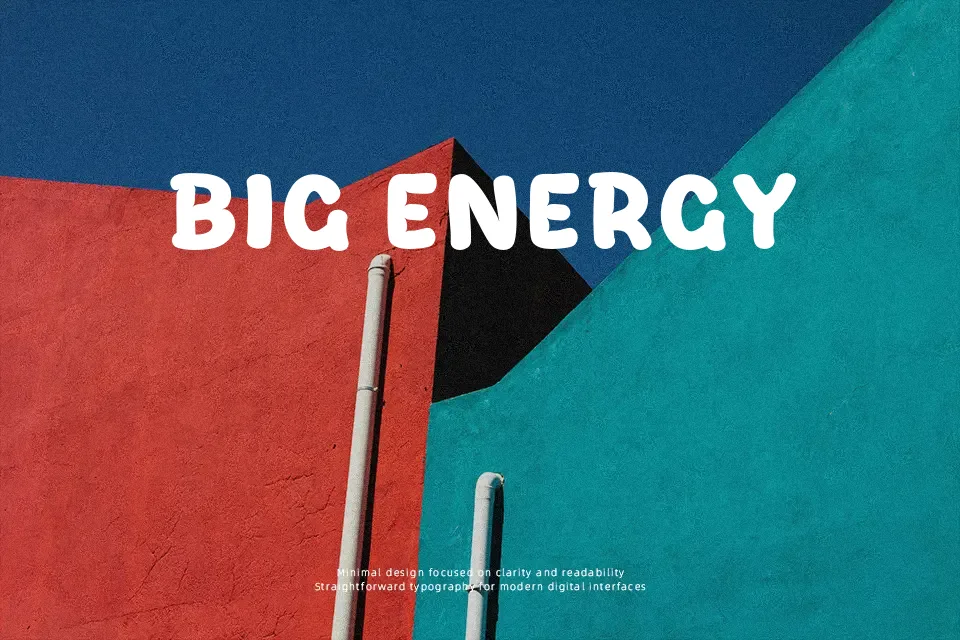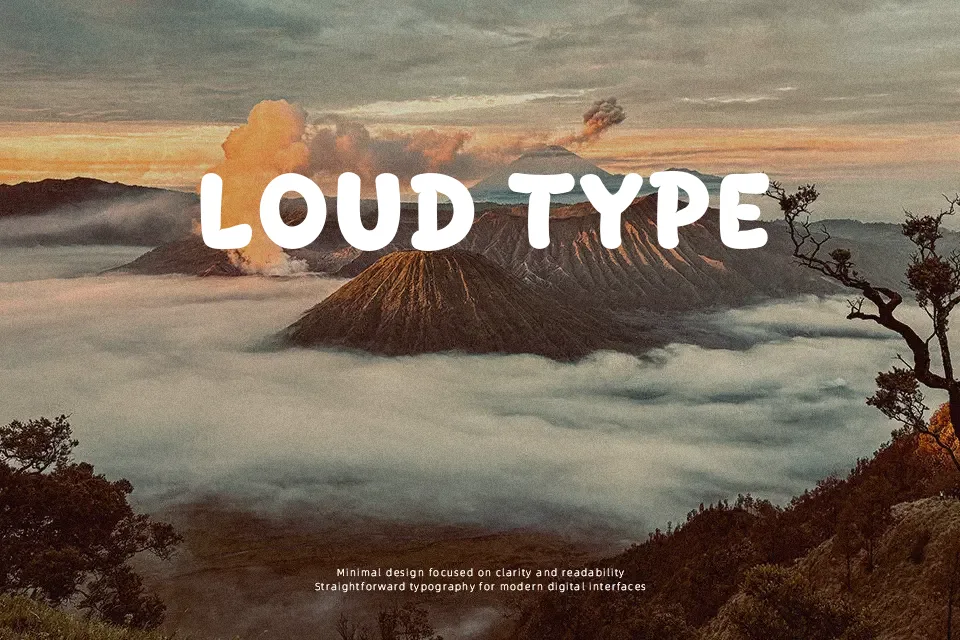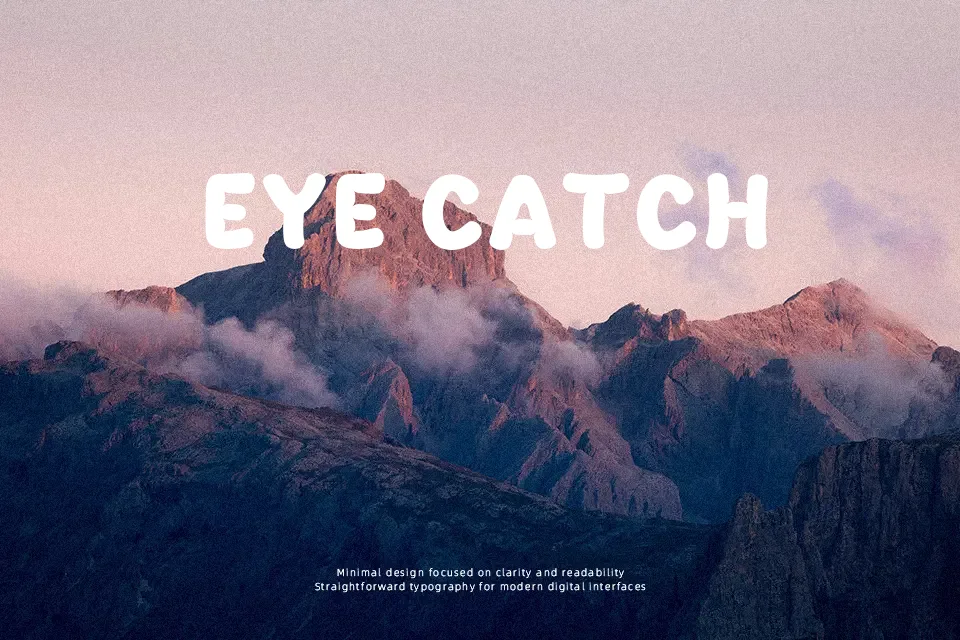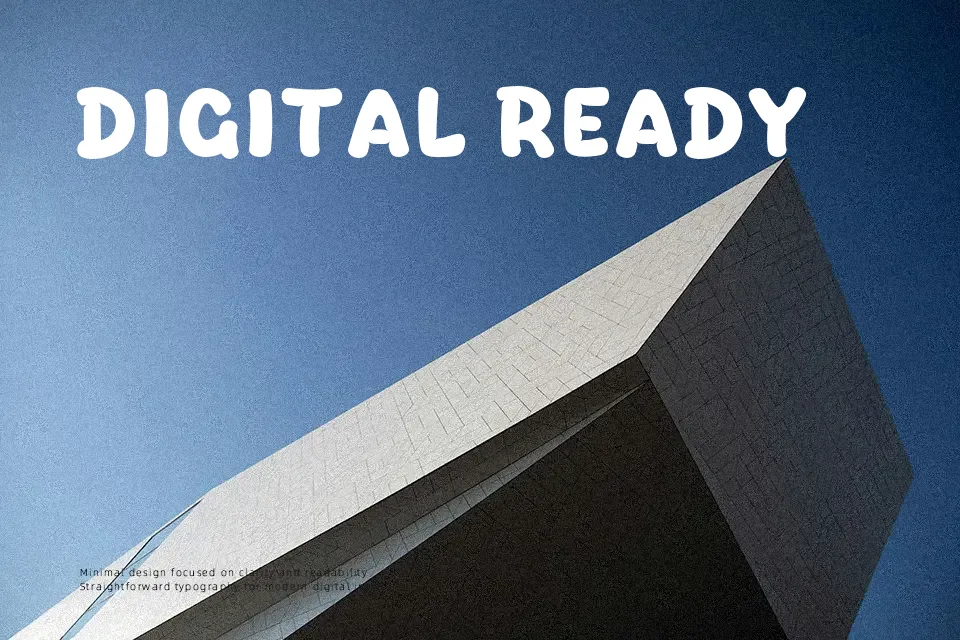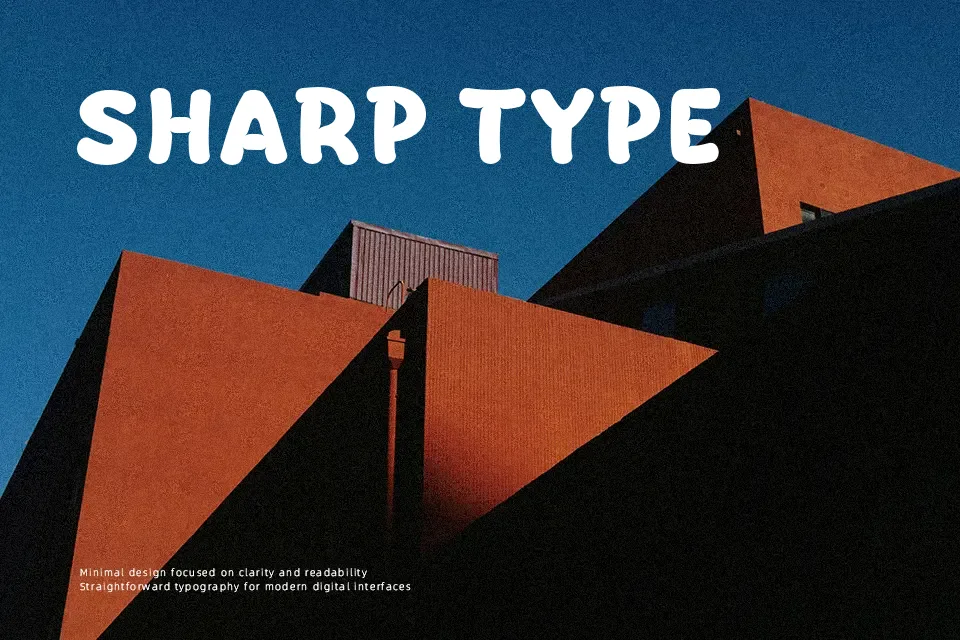
Base Moon Font
Thick strokes and bulging rounded shapes define Base Moon’s visual character — it reads more like a hand-inked comic title than a traditional display face. The near-uniform stroke weight and generous letter spacing give it a bouncy, approachable energy suited for children’s branding, mobile game UI headers, or event posters targeting young audiences. It supports uppercase, lowercase, numbers, punctuation, and multilingual characters, which adds practical flexibility. That said, the exaggerated weight and cartoon geometry make it a poor fit for anything requiring subtlety or professional restraint — financial services, editorial body copy, or formal identities would feel tonally off. If you need chunky display personality without going full graffiti, this delivers.
Best For:- Children’s book cover titles
– Mobile game or indie app logo headers
– Youth event poster headlines
– Playful social media graphic text
Not Ideal For:- Long paragraph or body text
– Corporate branding or formal business materials
– Editorial or news publication design
– Minimalist or luxury product packaging
Perfect for branding, kids, and logo, with a bold and cartoon style.